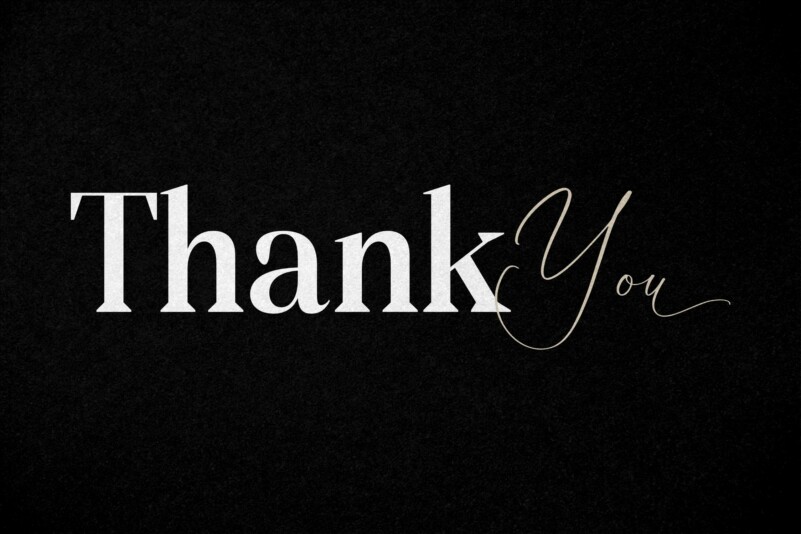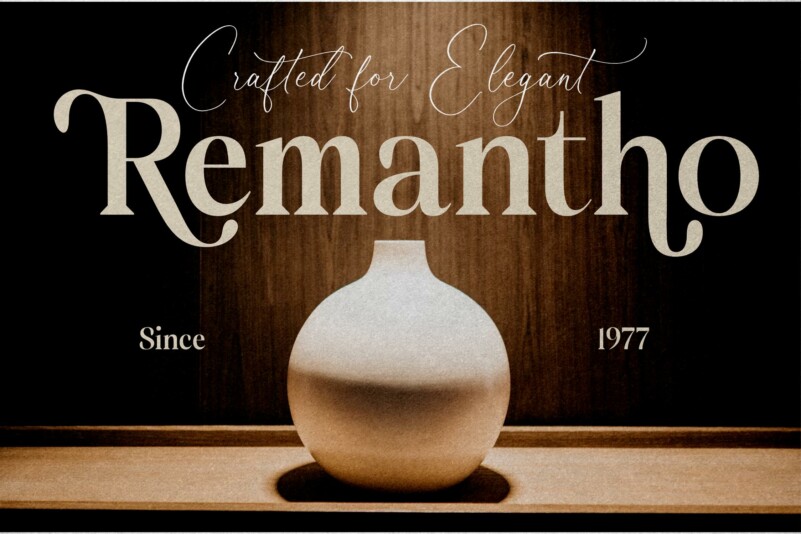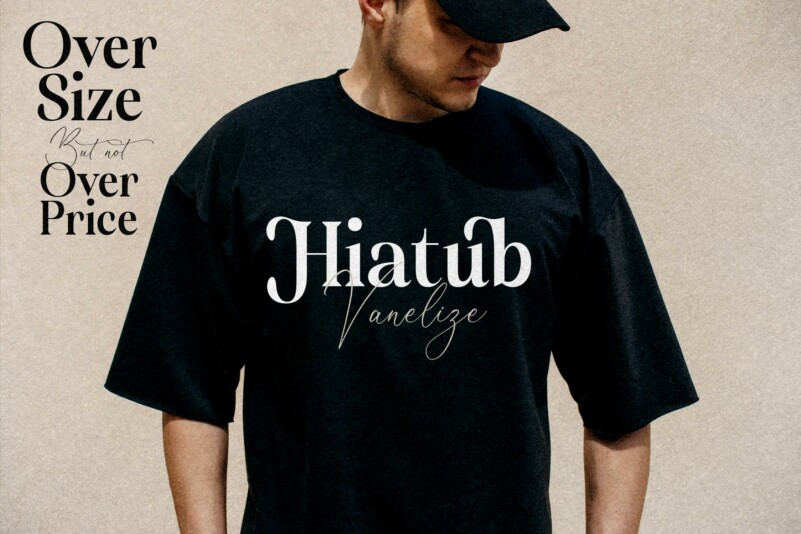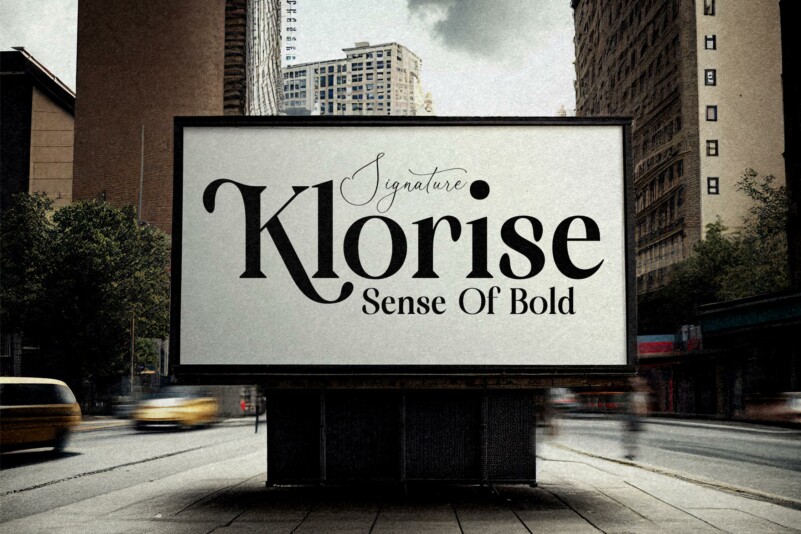
Molgiant Belliontera Font Duo
Molgiant Belliontera Font is a serif and script typeface that has own unique style & modern look. This typeface is perfect for an elegant & luxury logo, book or movie title design, fashion brand, magazine, clothes, lettering, quotes, and so much more.